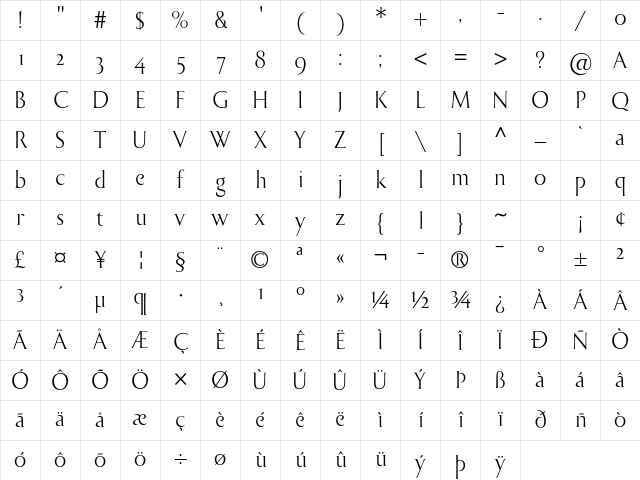
Bodebeck LT Std Regular
Designer: Anders Bodebeck
Design Context for Bodebeck LT Std
Bodebeck LT Std is a composed and adaptable typeface that performs quietly and consistently across a wide range of design contexts. Its slender proportions lend an understated elegance to any composition.